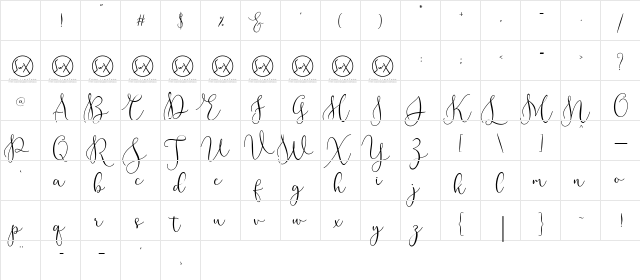
Rottarity Feminine is a composed and adaptable typeface that performs quietly and consistently across a wide range of design contexts.
Pro Tip: Use Rottarity Feminine in both headline and body roles to test its range before committing to a single application.